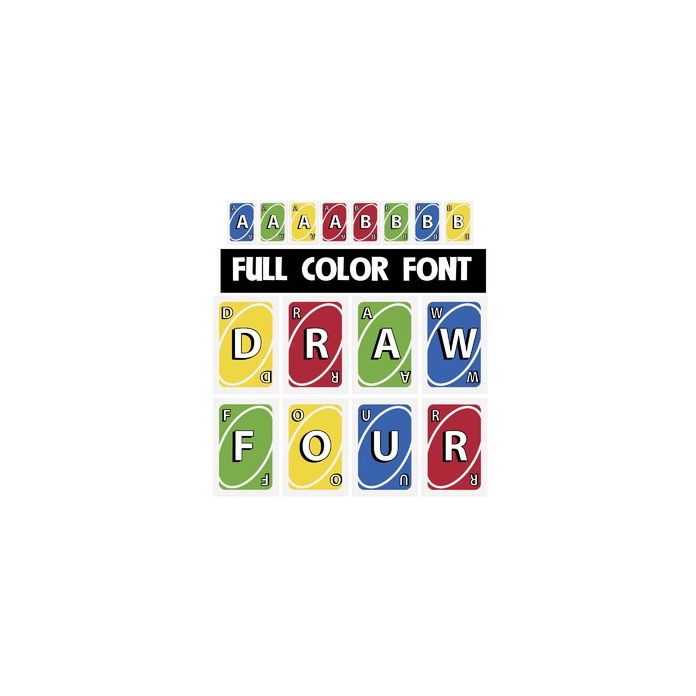
This full-color font features letters on playing cards. There is 4 colors available for each letter when you use the upper and lowercase and the alt cases (available through Silhouette's glyph map)